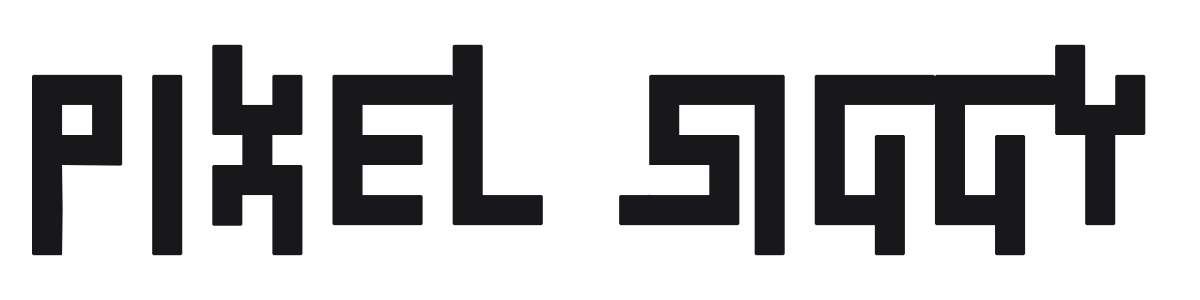
Pixel Siggy
Pixel Siggy is a bold, blocky pixel font from Julian Lighta with chunky 8-bit letterforms that feel like they belong on a retro game title screen or early computer interface. The geometric construction keeps things readable despite the heavy pixelation, and the characters carry enough weight to hold their own in headlines, posters, and digital nostalgia projects. It's all about that low-res charm, best used big where the grid is part of the appeal.